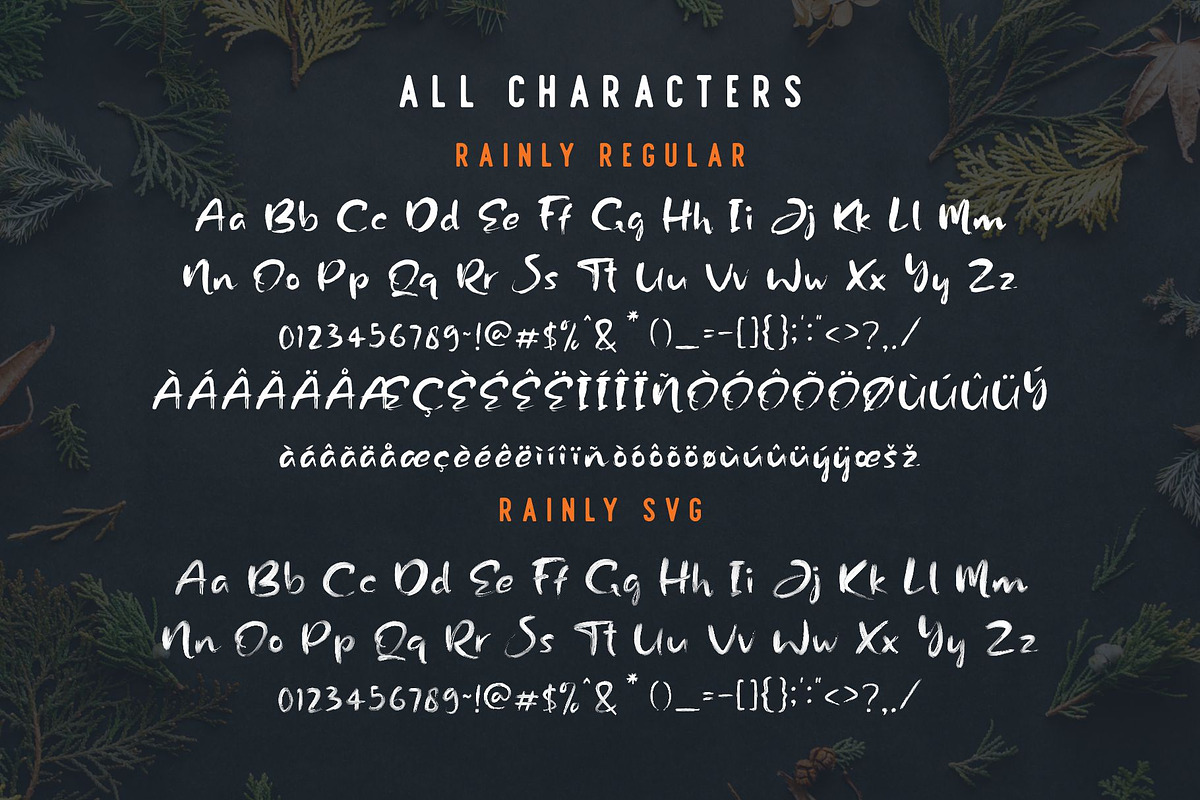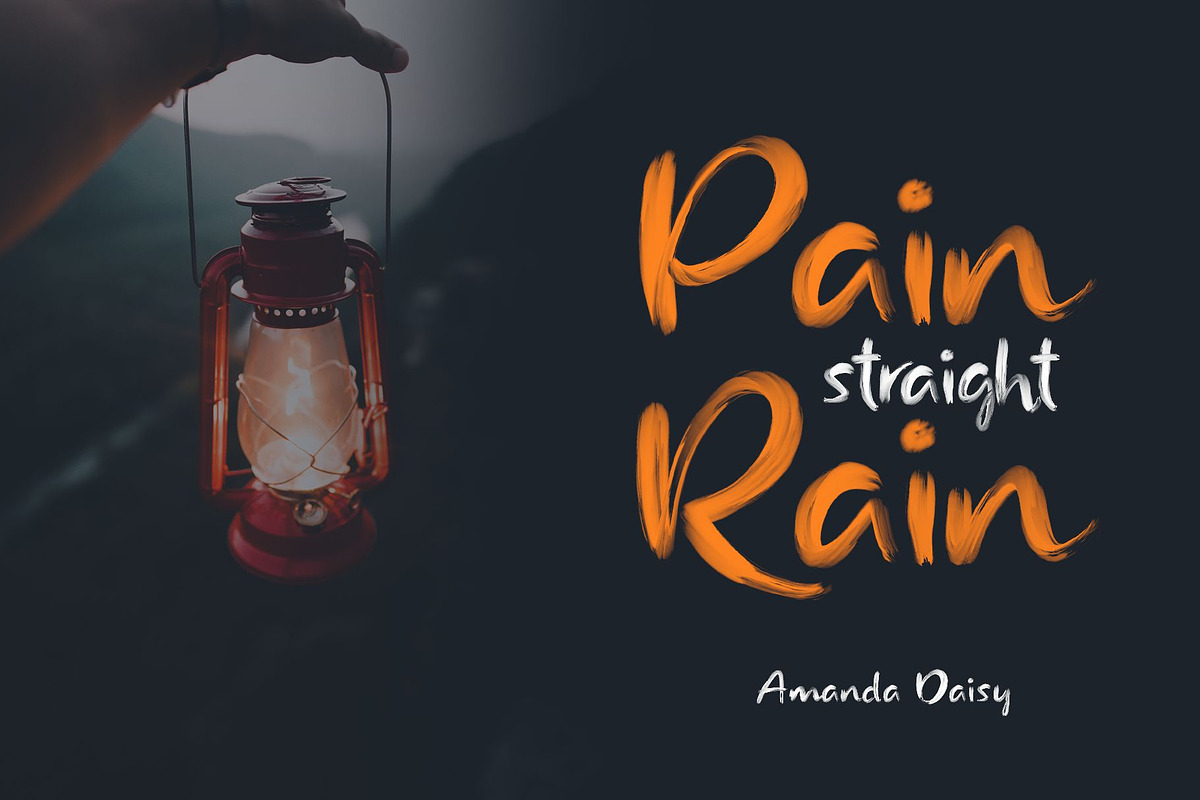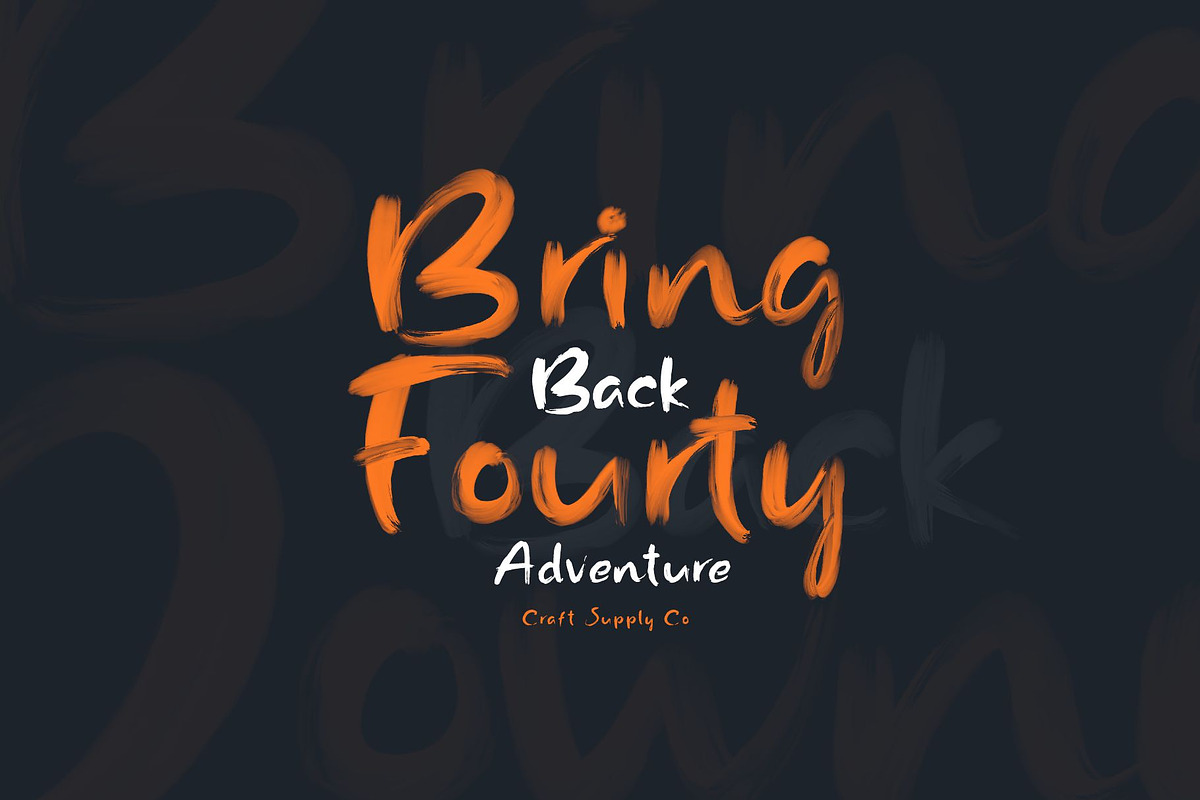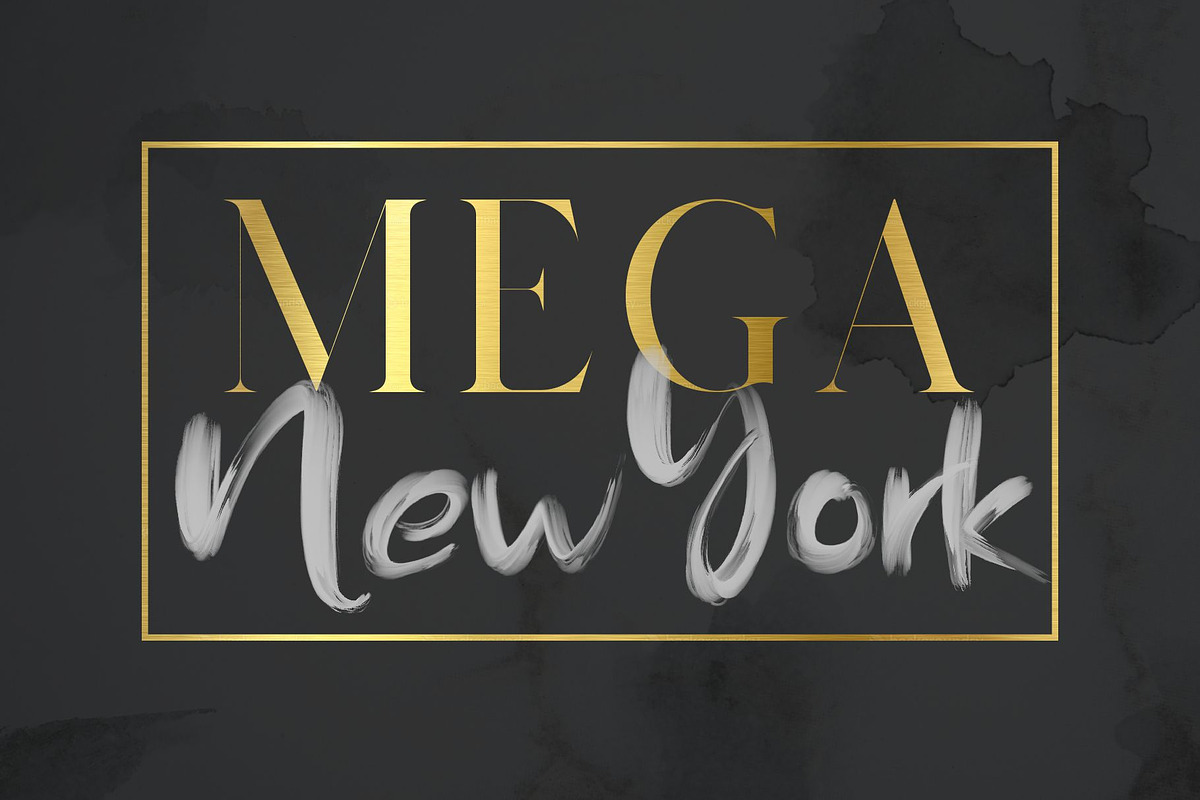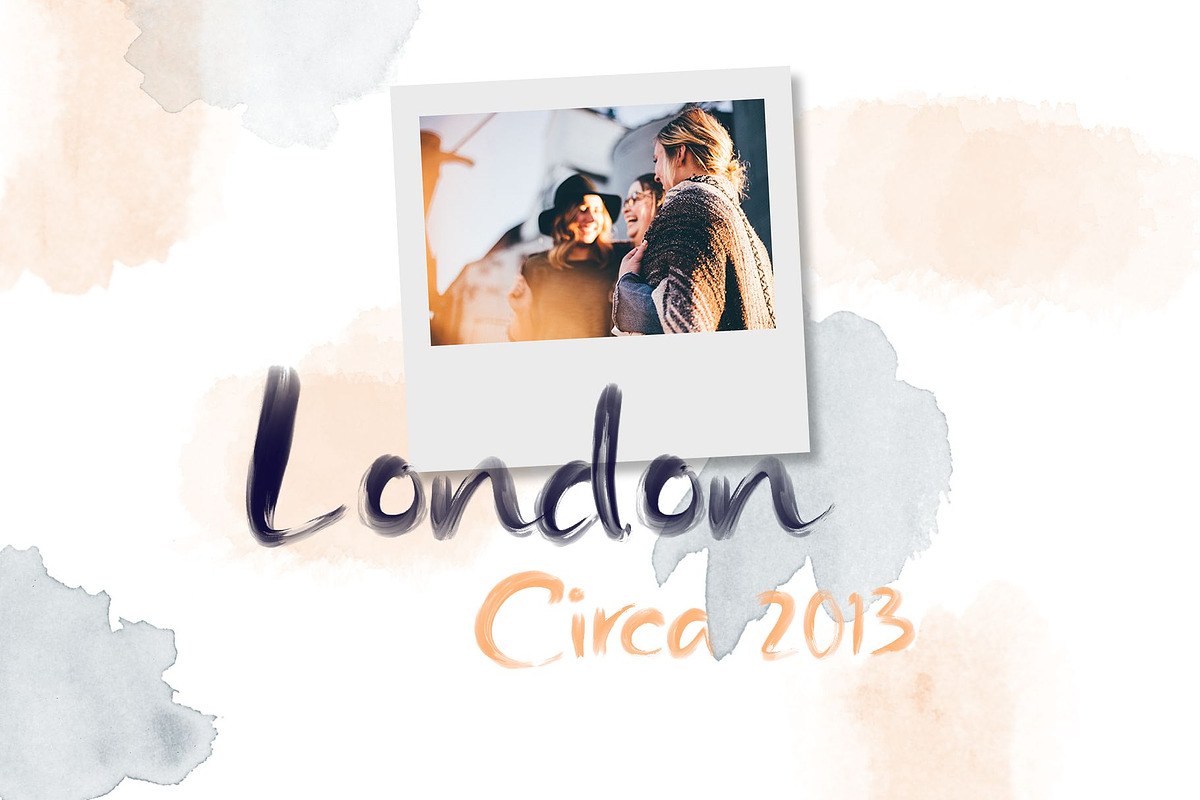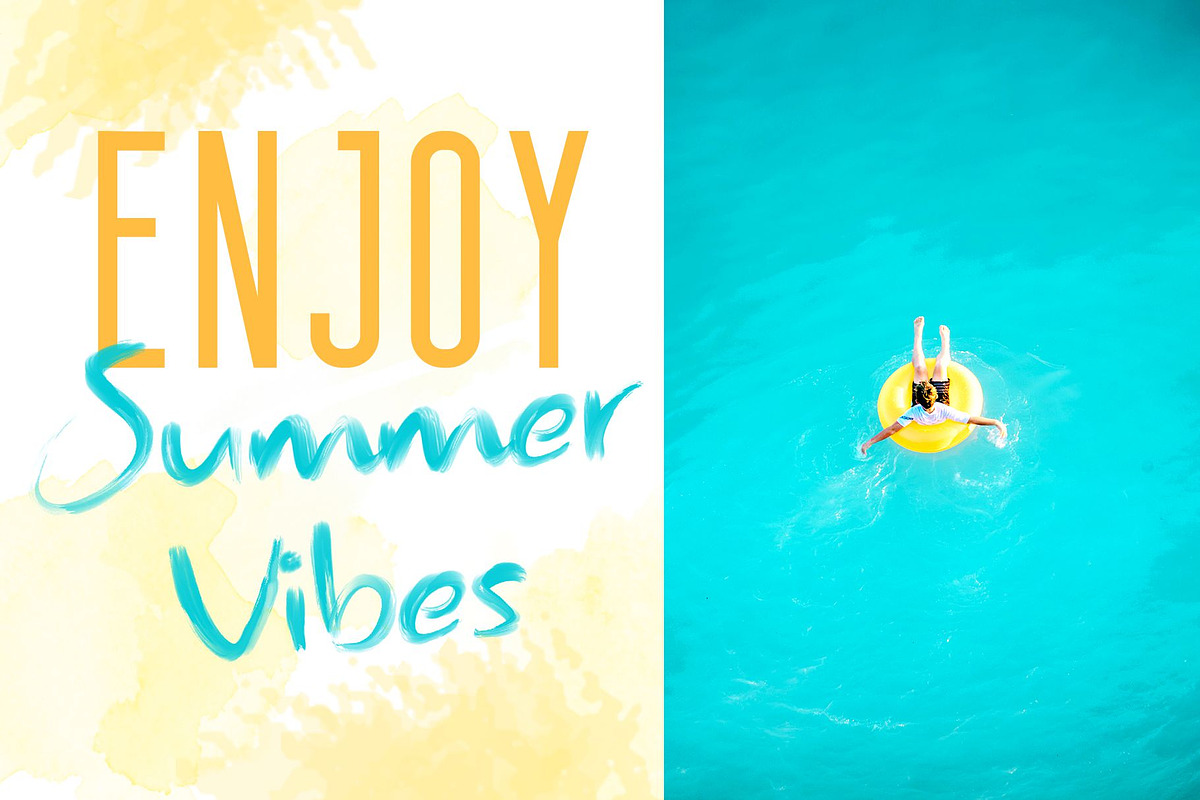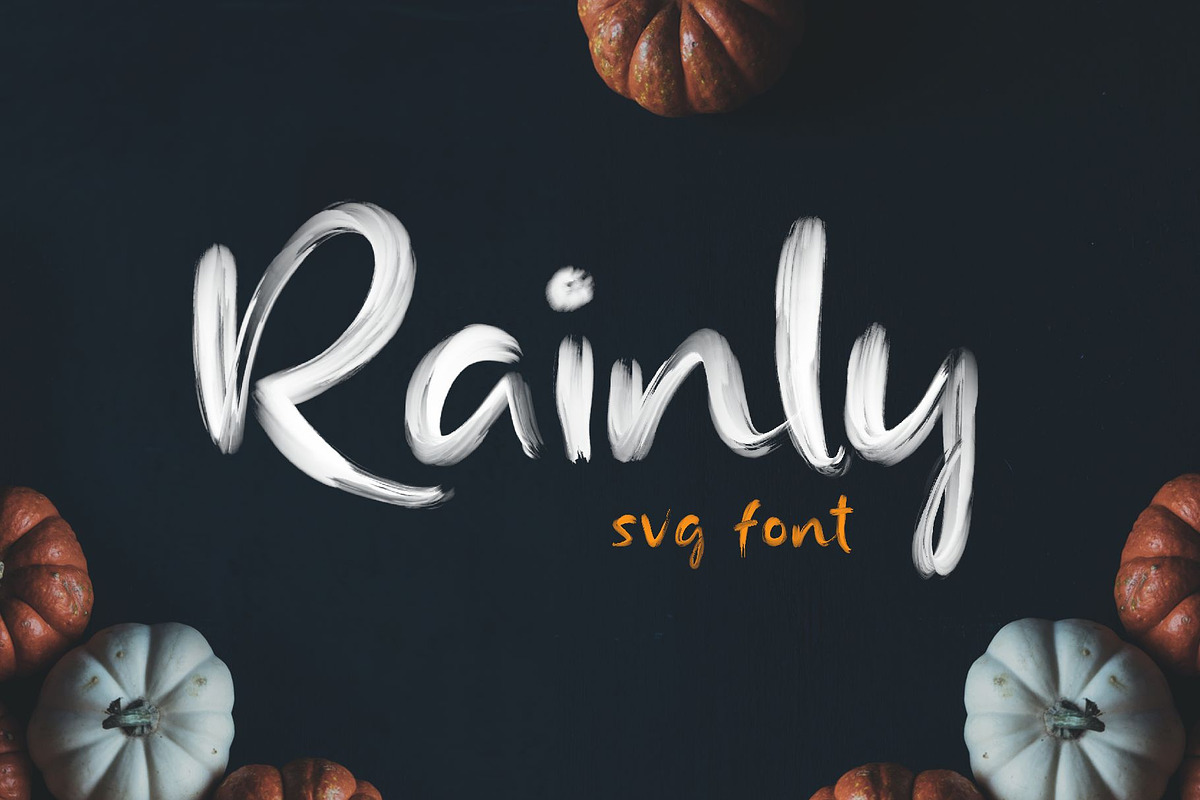
Rainly - Brush & SVG Font
Introducing New Font : Rainly - Brush & SVG Font
Introducing Rainly - Brush & SVG Font, we really like the diversity of colors. we also like something modern. we try to combine these 2 things into a work opentype SVG font. Then ..... here it is :) an excellent SVG opentype font for display purposes, Rainly - SVG Font is a attractive contemporary typeface drawn from scratch with brand-new, more vigorous detailing — and SVG variations for multiple use.
Rainly - Brush & SVG Font is suitable for Logo, greeting cards, quotes, posters, branding, name card, stationary, design title, blog header, art quote, typography art, modern envelope lettering or book design.
Rainly - Brush & SVG Font also suitable for happening style like handdrawn design or watercolor design theme, craft design, any DIY project, book title, wedding font, pop vintage design, or any purpose to make our art/design project look pretty and trendy.